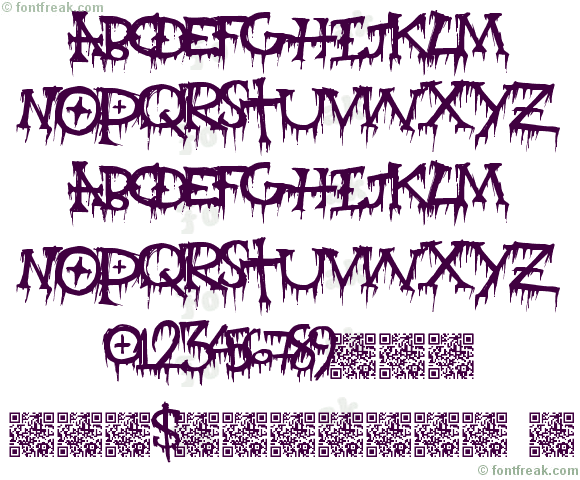
GravePain
GravePain by XEROGRAPHER FONTS is a distinctive display font that captures attention with its unique horror-inspired aesthetic. This font is characterized by its jagged edges and dramatic strokes, which create a striking contrast between thick and thin lines. The erratic spacing adds to its edgy feel, making it perfect for designs that aim to evoke a sense of unease or intrigue. Its overall appearance is reminiscent of dripping paint or melting wax, giving it a raw, artistic quality that stands out.
Ideal for a variety of creative projects, GravePain is particularly well-suited for Halloween-themed graphics, movie posters, and album covers for rock or gothic music genres. It also works wonderfully for restaurant menus aiming for a dark, moody atmosphere or promotional materials for horror events. Graphic designers looking to add a touch of drama to their work will find this font to be a valuable addition to their toolkit.
The target audience for GravePain includes graphic designers, small business owners, content creators, and anyone in need of a captivating typeface that commands attention. Its unique visual characteristics make it a versatile choice for projects that require a bold statement.
What sets GravePain apart is its ability to convey a strong emotion through its unconventional style. The font manages to balance between artistic expression and readability, making it an excellent choice for both digital and print media. Its freeware license further enhances its appeal, allowing users to enjoy the GravePain font free download without any restrictions. This font not only enhances the visual impact of any design but also adds a layer of personality that resonates with audiences.